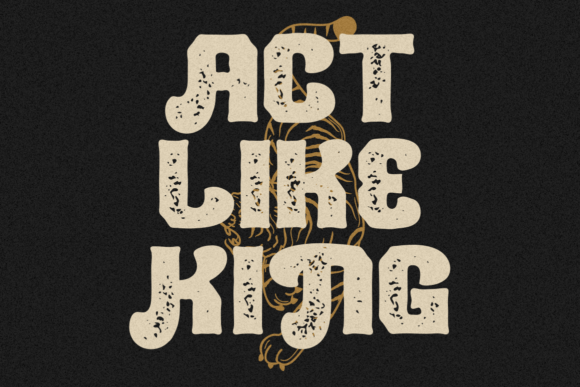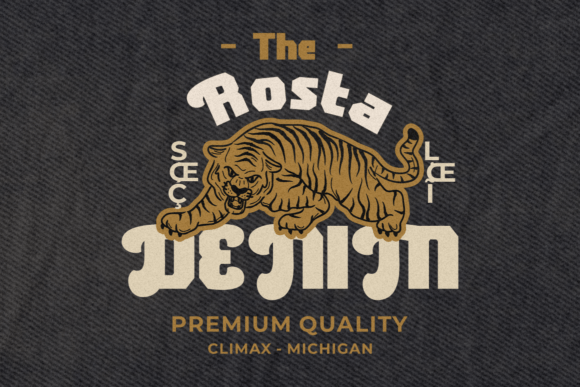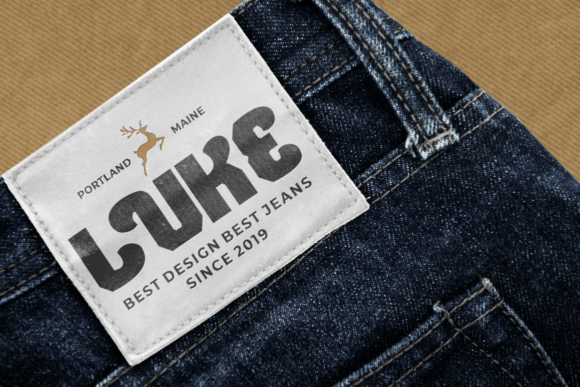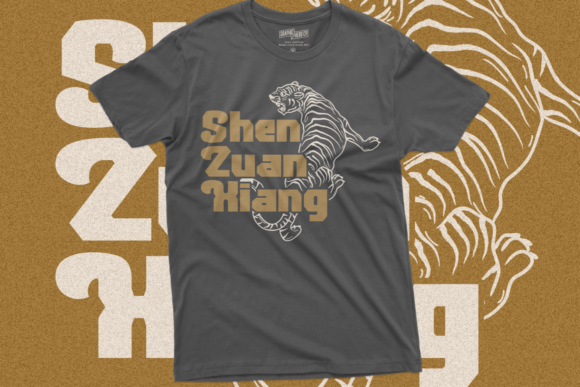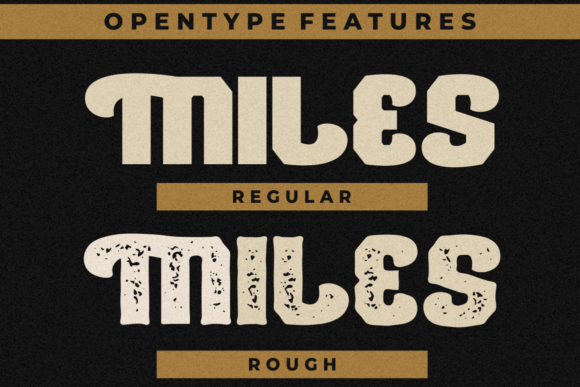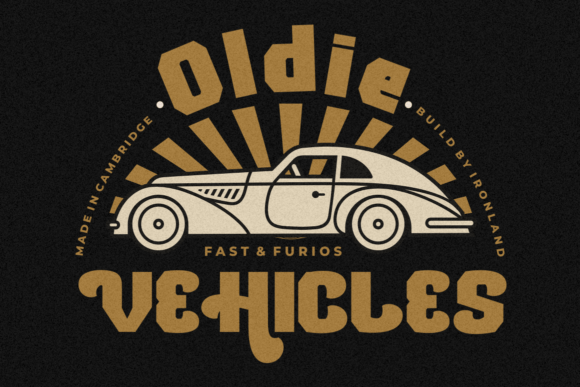
Introduction to Old Beck Font Font
Fonts play a crucial role in design, and the Old Beck Font font is a typeface that brings both character and versatility to any project. Whether you’re working on a branding project, a website, or a print design, the Old Beck Font font offers a unique style that can elevate your work.
Old Beck – Display Vintage Retro Serif Font.
This bold typeface effortlessly combines the charm of vintage and retro aesthetics, creating a groovy yet classic vibe With two distinct versions – clean and rough – Old Beck offers versatile options for your designs.
The Old Beck Font font is more than just a typeface – it’s a design tool that helps you communicate your message with style and clarity. Its unique character set and versatile design make it suitable for a wide range of applications, from elegant invitations to bold headlines.
With its carefully crafted letterforms and balanced proportions, the Old Beck Font font ensures readability and visual appeal across all mediums.
What makes Old Beck Font font special?
The Old Beck Font font stands out with its unique design, exceptional readability, and versatility across various design applications.